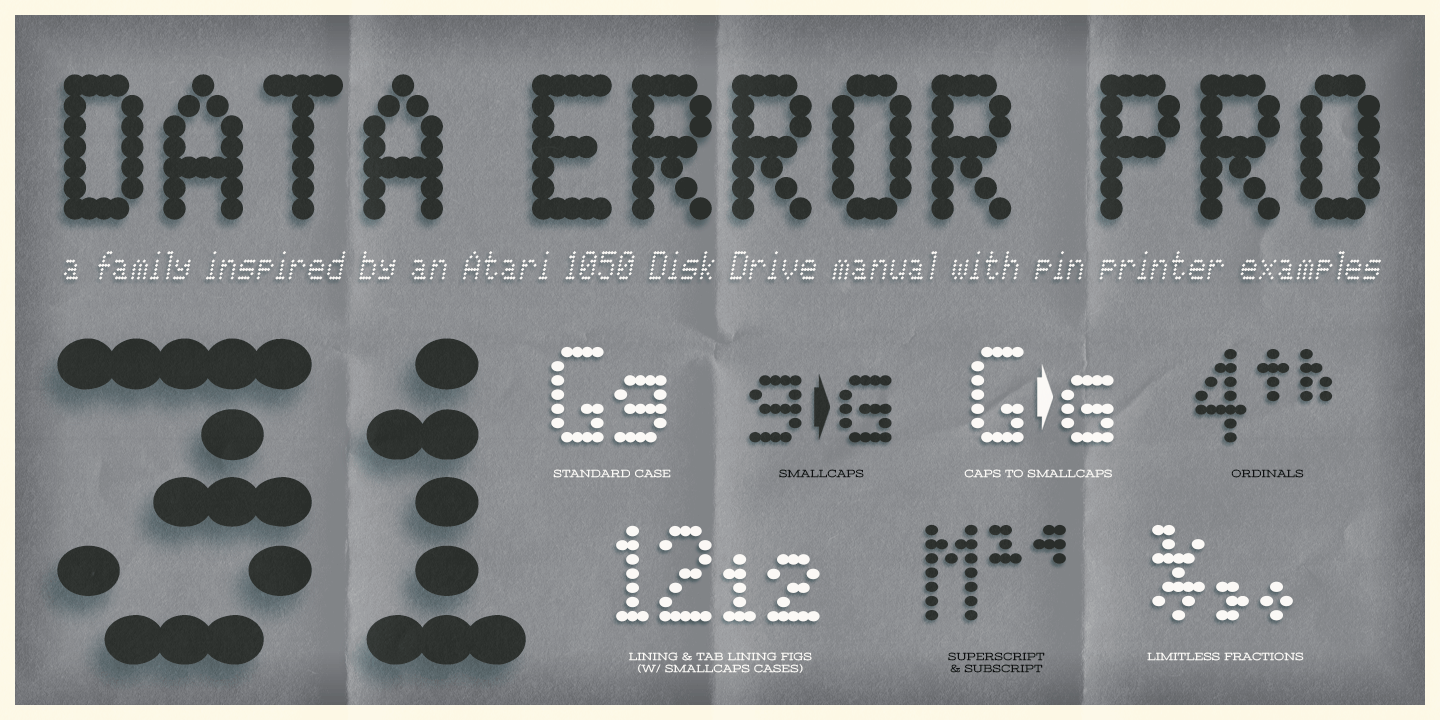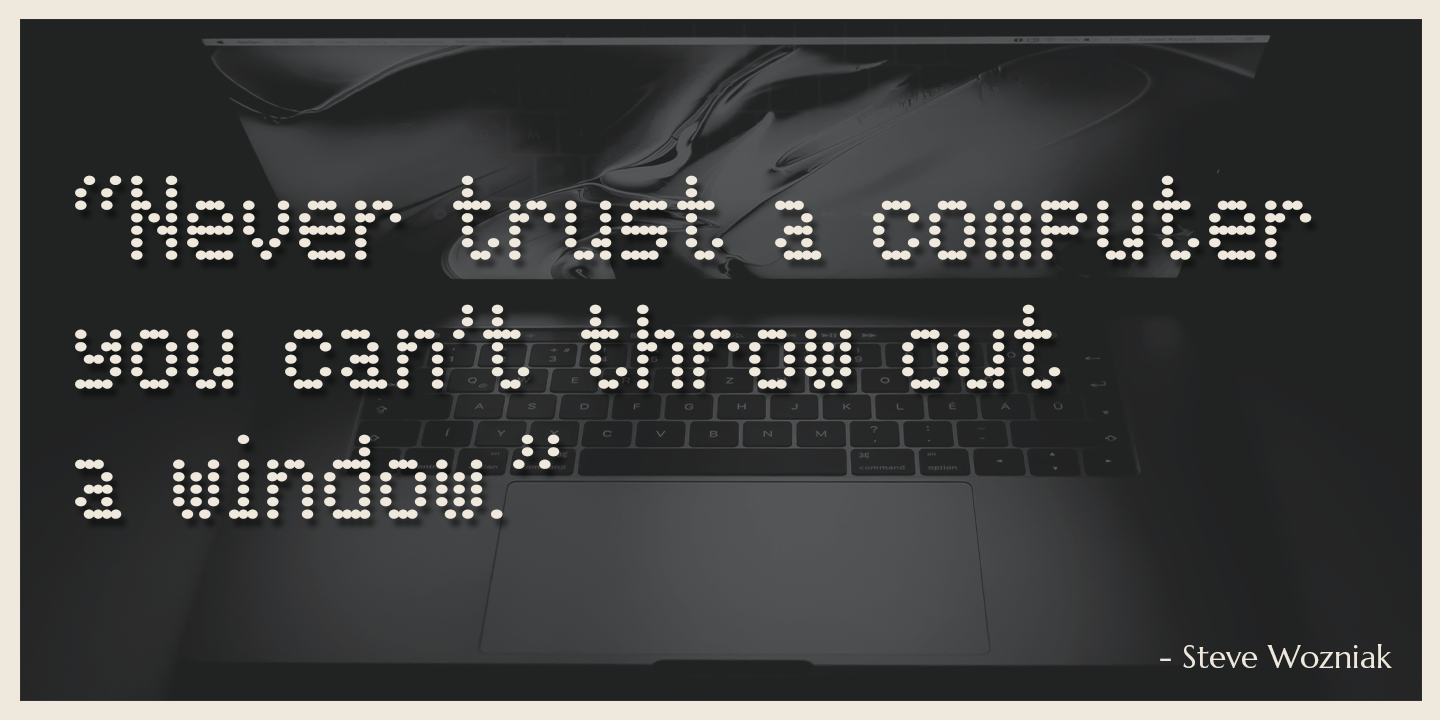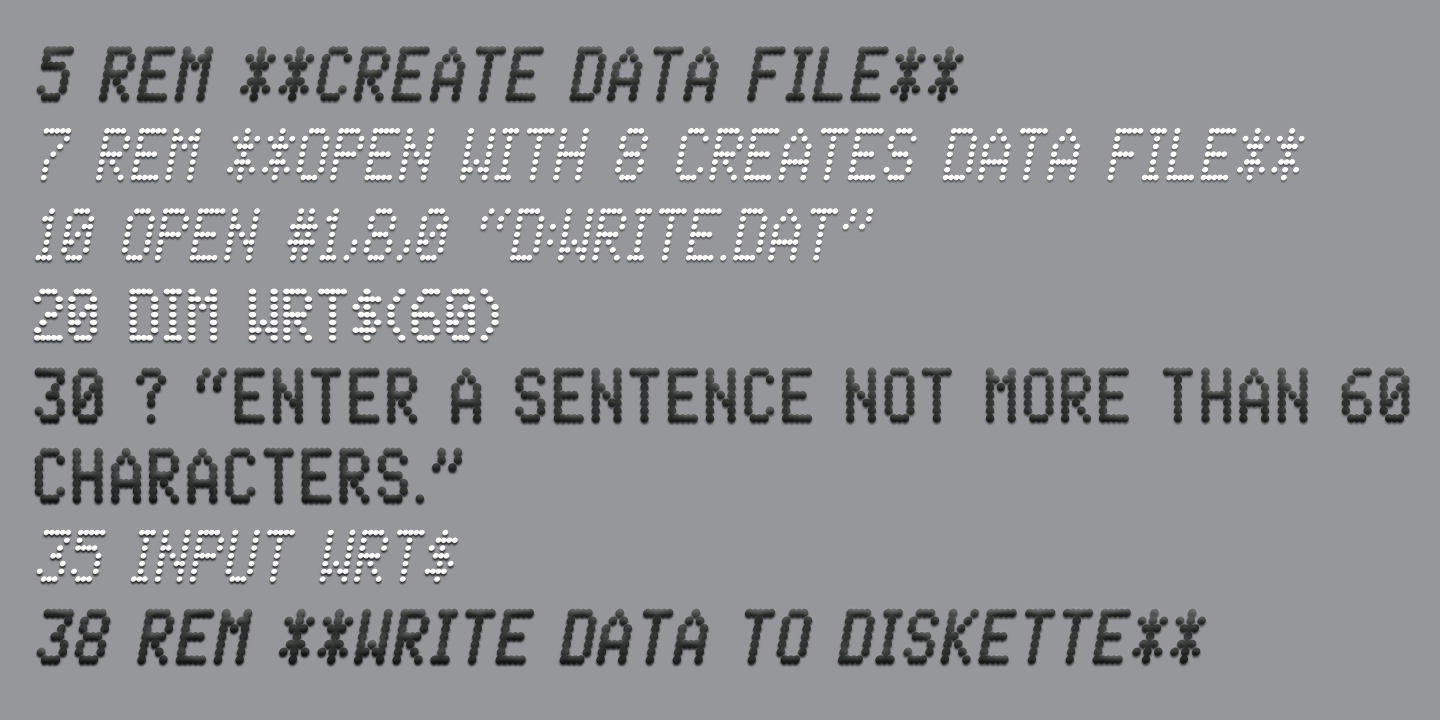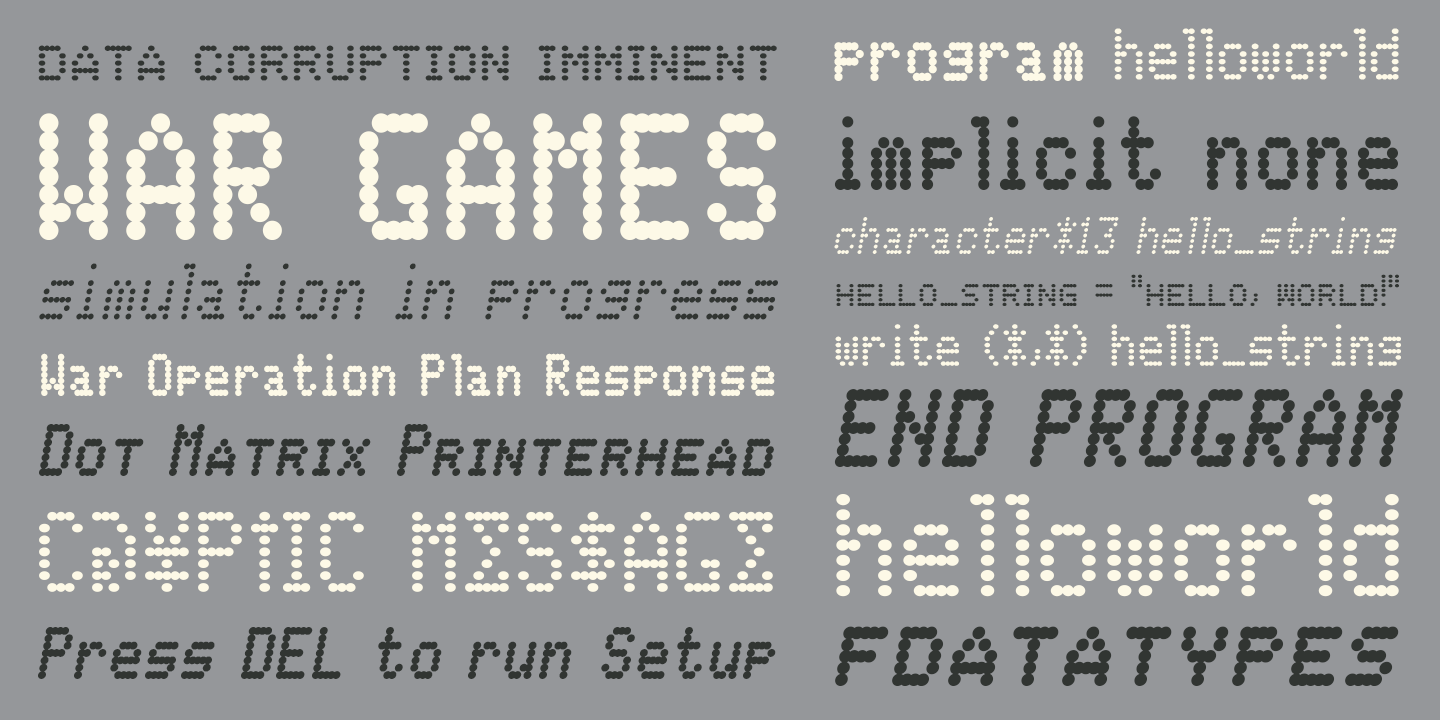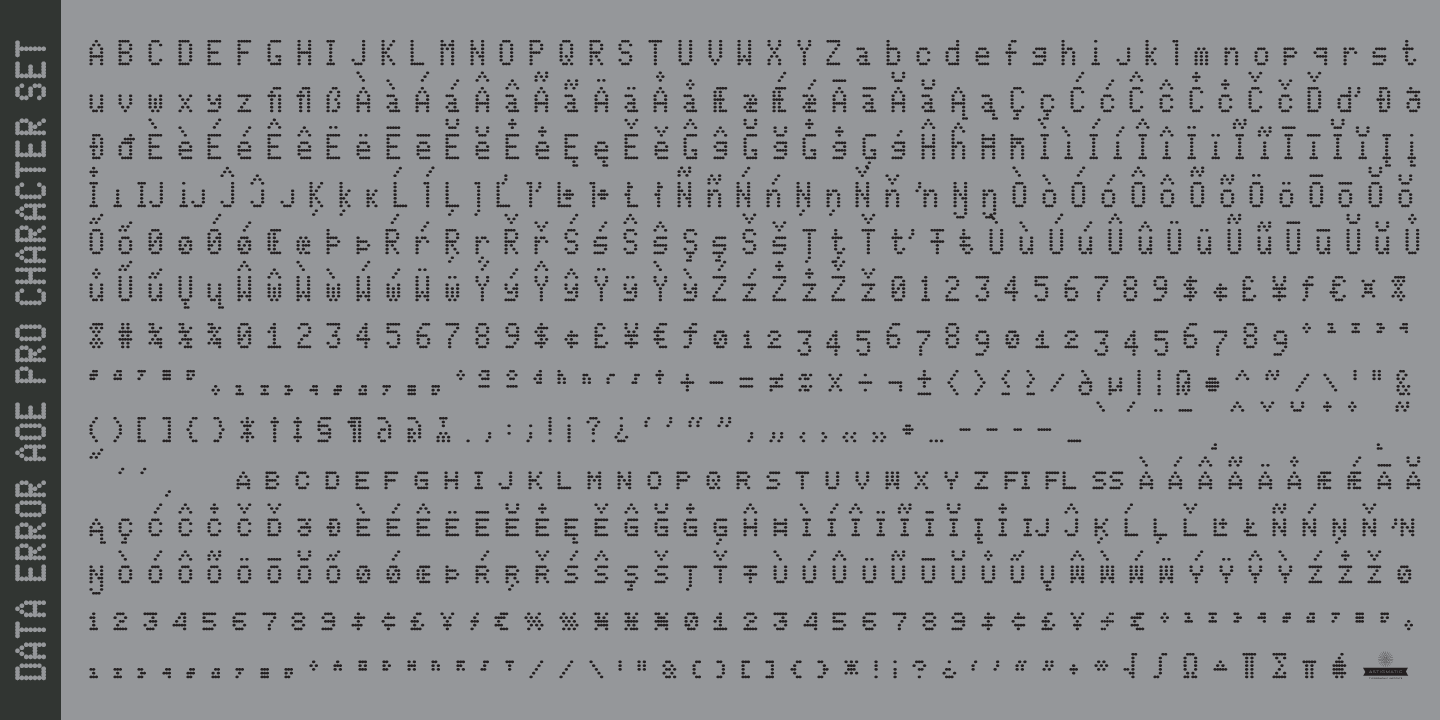
Data Error AOE Pro
Inspired by some old printouts of BASIC programs and an Atari 1050 Disk Drive manual with pin printer examples, comes the familiar yet oddly restricted style with this Data Error family. This family comes complete with Regular and Bold versions with their respective Oblique versions. Odd pin printer restrictions inherent in this typeface are: no characters extend below baseline or above ascender line, (except international accents).
A nostalgic typeface for computer programmers everywhere, strong and legible at any size, Data Error is perfect for so many purposes, get it today!